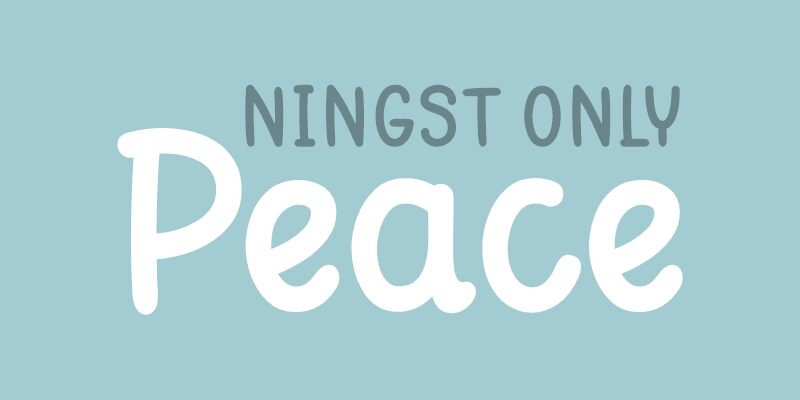
Ningst Only Peace
Ningst Only Peace is a light and lovely handwritten font designed by talented sisters Nista Ningsih Nazara and Situjuh Nazara. It's perfect for creating heartfelt greeting cards, scrapbooking, posters, and branding projects.